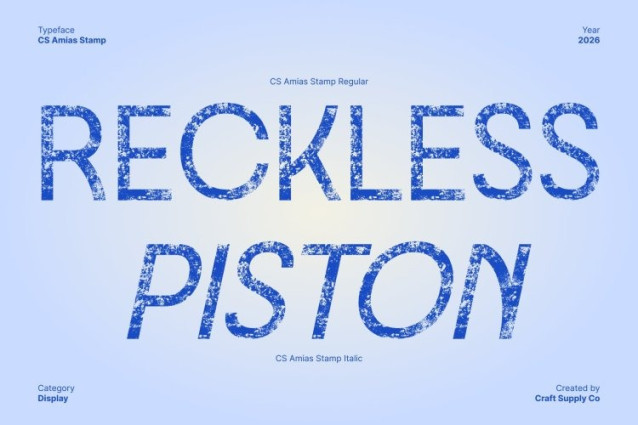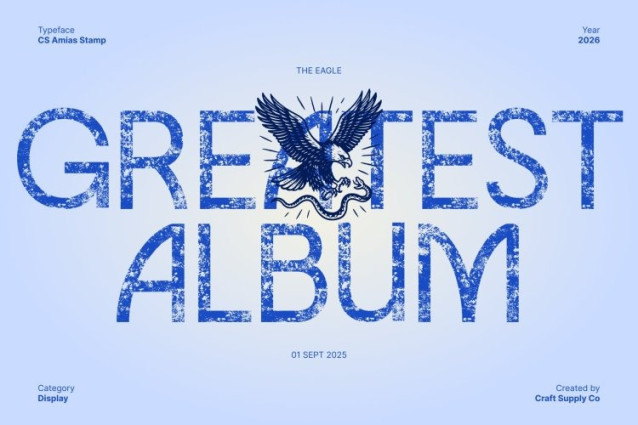
CS Amias Stamp Font
CS Amias Stamp Font This is a modern sans serif font built on clean geometric structure and minimalist design principles. Its well-proportioned letterforms and crisp lines create a fresh, contemporary appearance that feels refined, balanced, and approachable. The geometric precision ensures clarity and order, making the font visually confident and effortlessly modern.
Minimalist Design with Trend-Driven Appeal
The minimalist construction of this font allows content to breathe, giving layouts a sleek and uncluttered look. Subtle geometric influences introduce visual rhythm without overwhelming the design, resulting in a font that feels trendy yet controlled. This calm, modern aesthetic makes it highly adaptable across both digital and print environments.
Vintage Stamp Texture with Artistic Character
The stamp effect transforms the clean geometry into something more expressive and distinctive. Soft distressing, uneven ink textures, and subtle imperfections introduce a vintage, handcrafted feel that adds depth and personality. This artistic texture creates a unique contrast merging modern minimalism with an aged, tactile character that feels authentic and visually engaging.
Perfect for Branding and Modern Visual Identity
Ideal for minimalist branding, modern logos, editorial layouts, web design, and promotional materials, offers both clarity and character. Its combination of geometric precision and vintage stamp texture makes it especially suited for creative studios, lifestyle brands, and contemporary identities that seek a clean look with a unique, memorable edge.